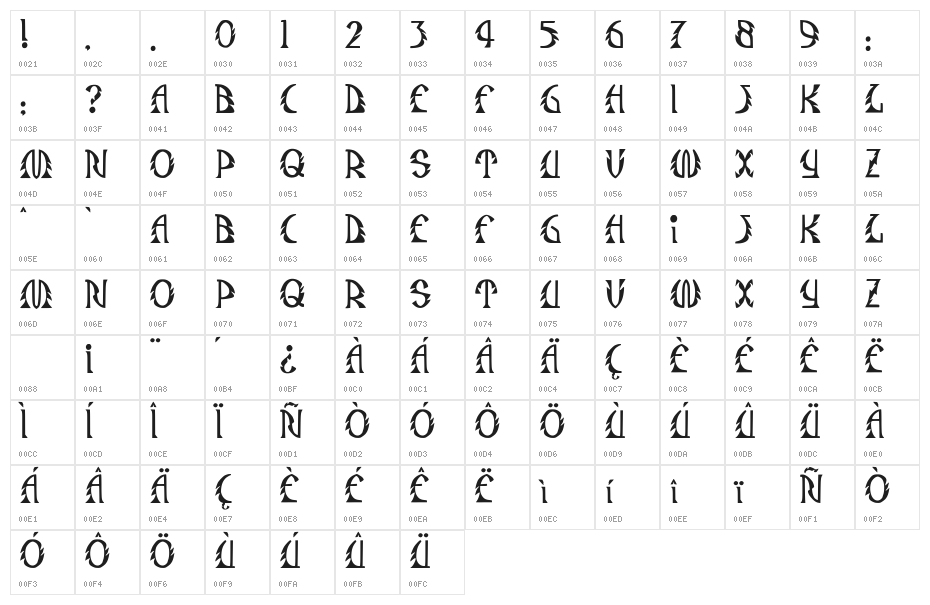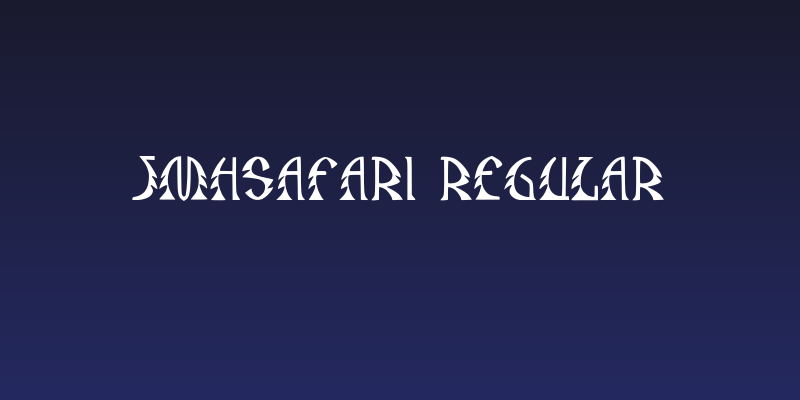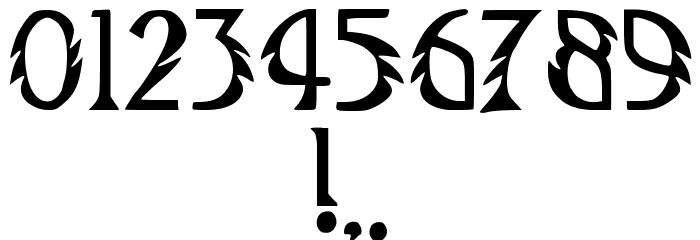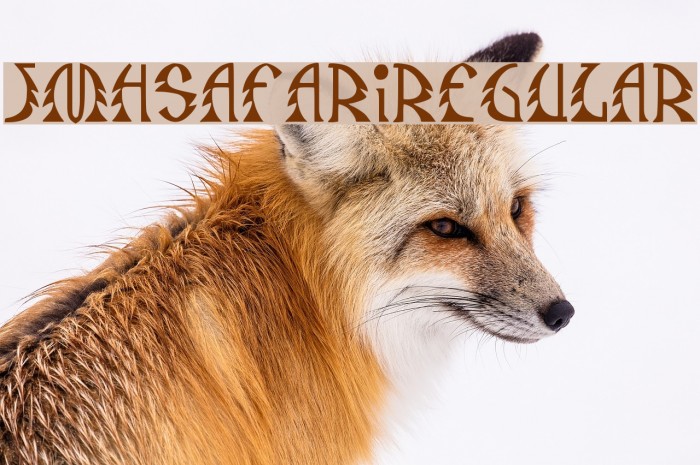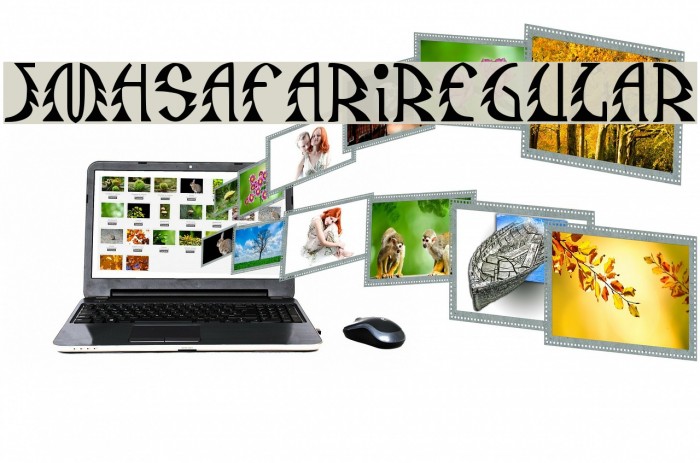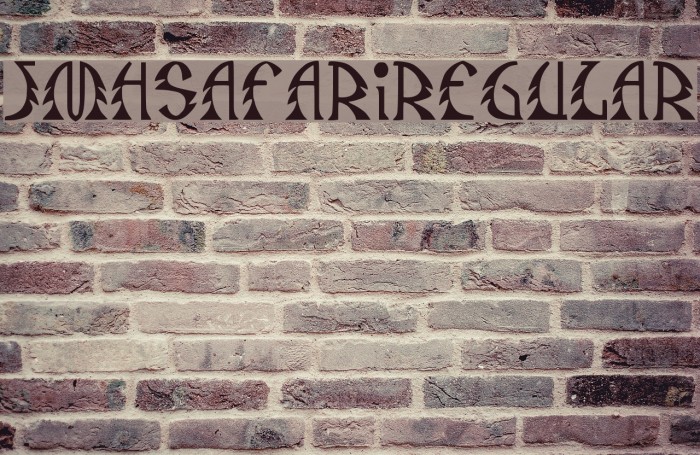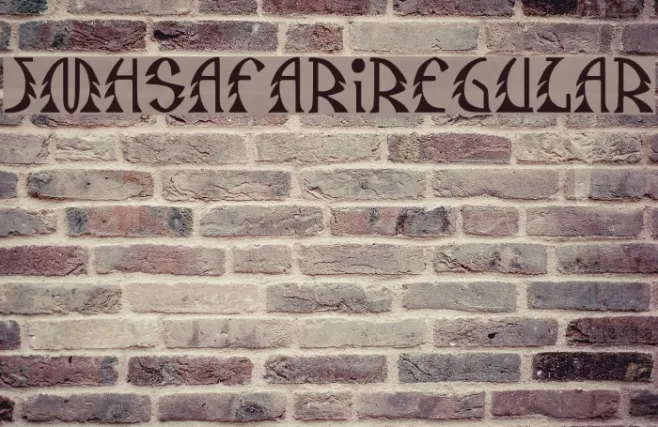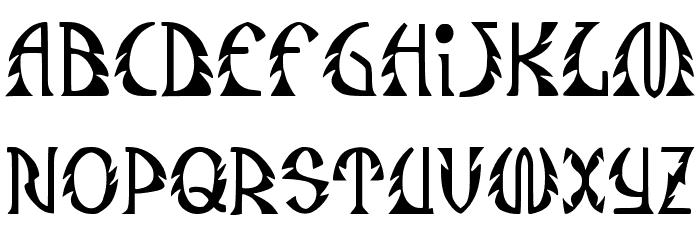
JMHSafari-Regular Font
JMHSafari-Regular Description
This font features a bold and striking design with sharp, angular edges and a tribal-inspired aesthetic. The characters are highly stylized, with intricate cutouts and pointed serifs that give it a unique and decorative appearance. The uppercase and lowercase letters maintain a consistent style, with the numbers and special characters following suit. The overall look is both aggressive and artistic, making it suitable for projects that require a strong visual impact.
| Proposed Projects | Ideal for use in branding, posters, album covers, and any design needing a bold, artistic flair. |